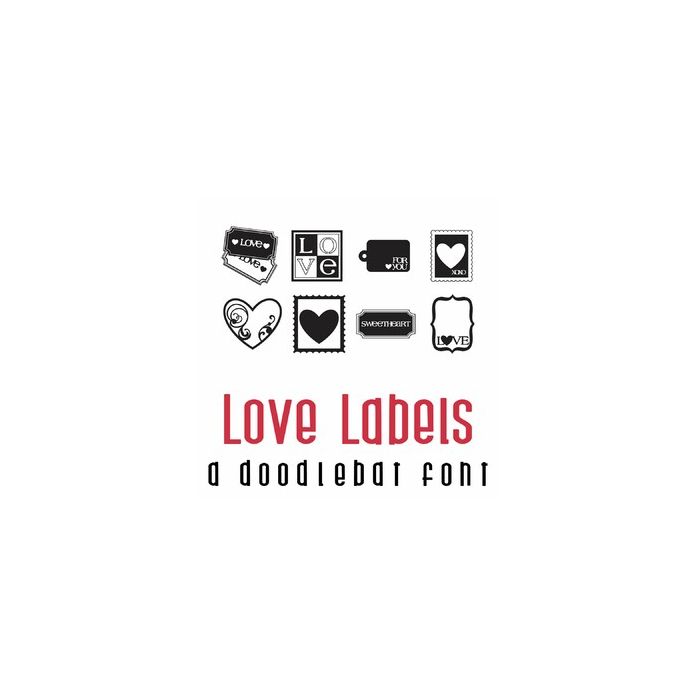
Love Labels Doodlebat Font
This fun doodlebat font features 26 love labels perfect for cards, crafts, gifts, scrapbook pages, planner stickers, and more!